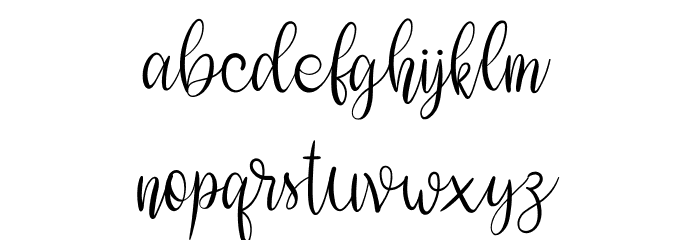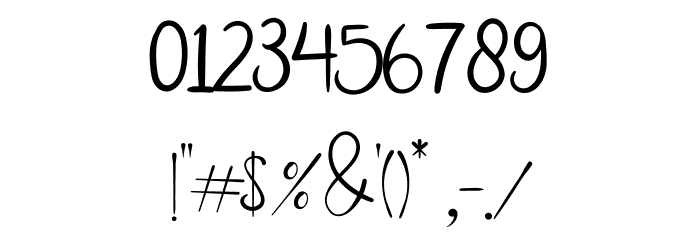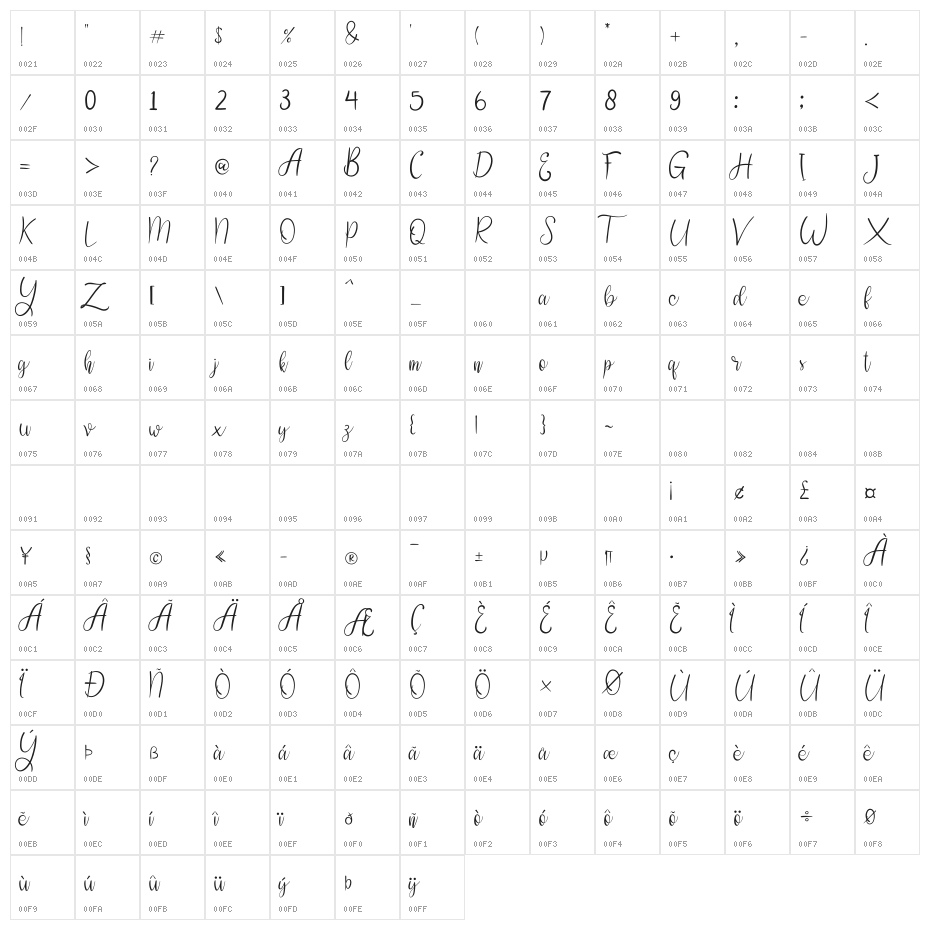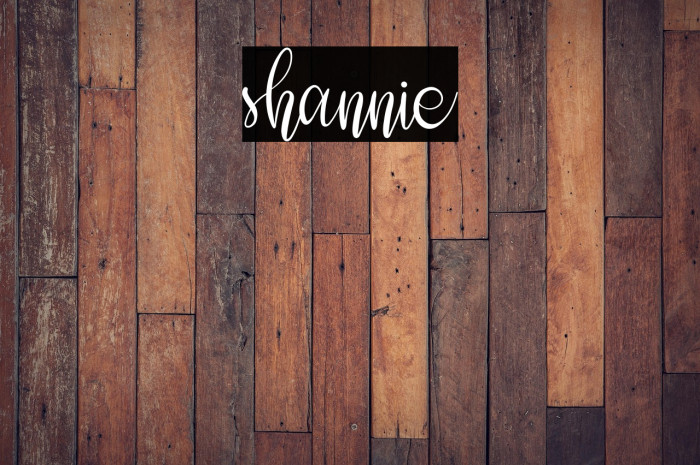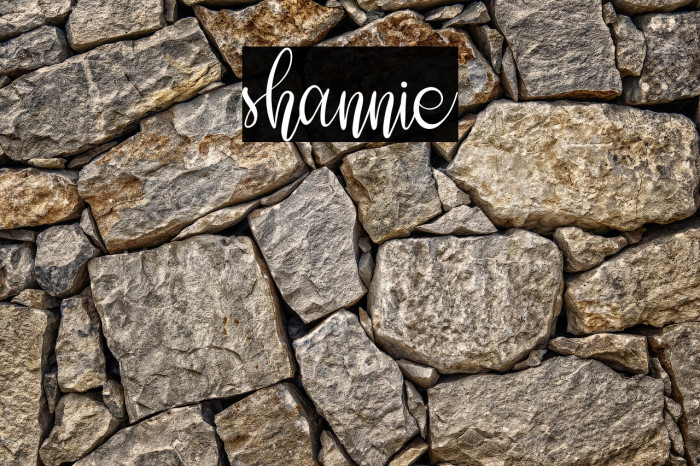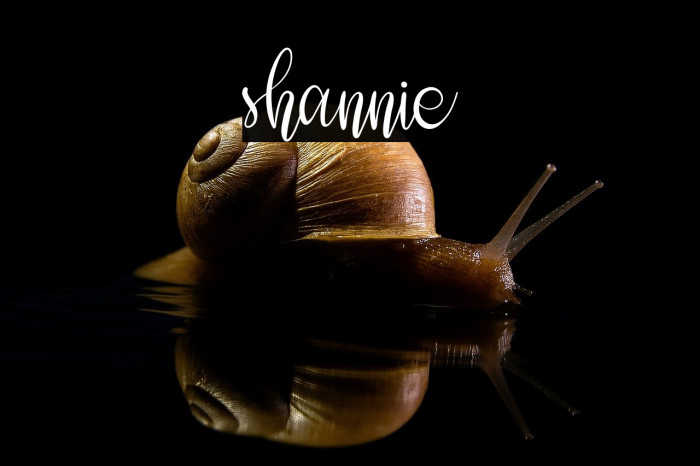
shannie Font
This font features a flowing, cursive style with elegant, sweeping strokes that give it a handwritten appearance. The uppercase letters are tall and graceful, with some characters featuring distinctive loops and flourishes. The lowercase letters maintain a consistent flow, enhancing the script-like quality. Numbers are clear and slightly rounded, complementing the overall aesthetic. The special characters are designed to match the cursive style, ensuring a cohesive look across all elements. This font exudes a sense of elegance and sophistication, making it ideal for projects that require a personal touch.
A cursive, handwritten-style font with elegant, flowing strokes.
- Proposed Projects: Ideal for wedding invitations, greeting cards, personal branding, and elegant packaging designs.
- Overall Style: Elegant, Handwritten
- Use Case: Logos, Invitations, Greeting Cards